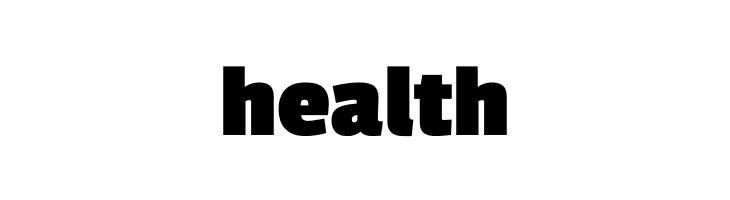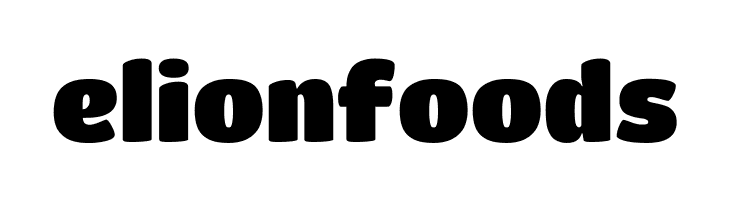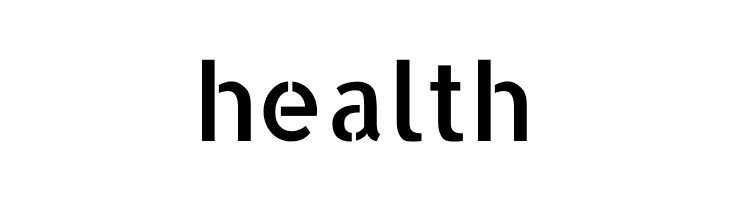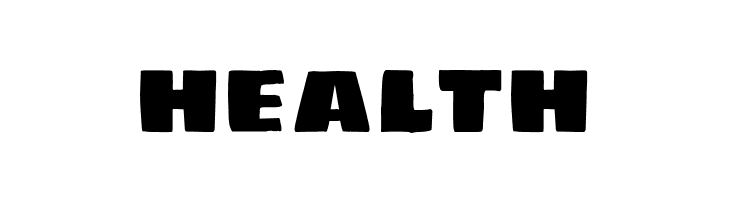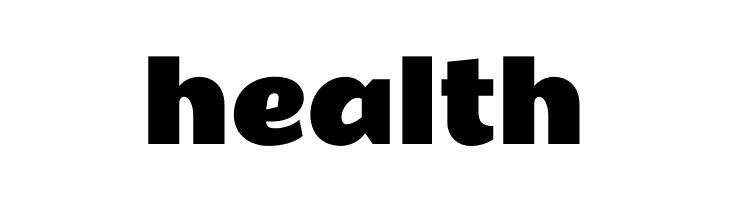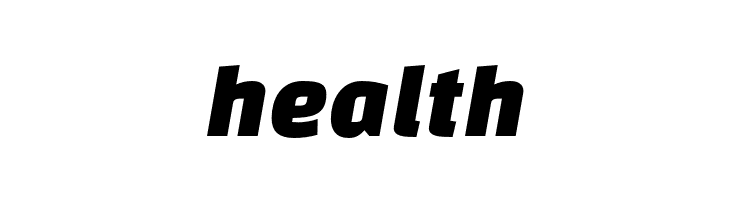
A bold, modern font with thick, uniform strokes for impactful design.
A bold, impactful font with thick, uniform strokes and a strong geometric influence.
A bold, rounded font with a modern and impactful style.
A modern, geometric stencil font with bold, clean lines and cut-out sections.
A bold, impactful typeface with thick, rounded letters.
A bold, modern sans-serif font with clean lines and strong visual impact.
A bold and impactful slab serif typeface with strong, block-like serifs.
A bold, geometric font with strong, uniform strokes and a modern aesthetic.
A bold, italic serif font with a classic and authoritative style.
A bold, italic font with a modern and dynamic style.